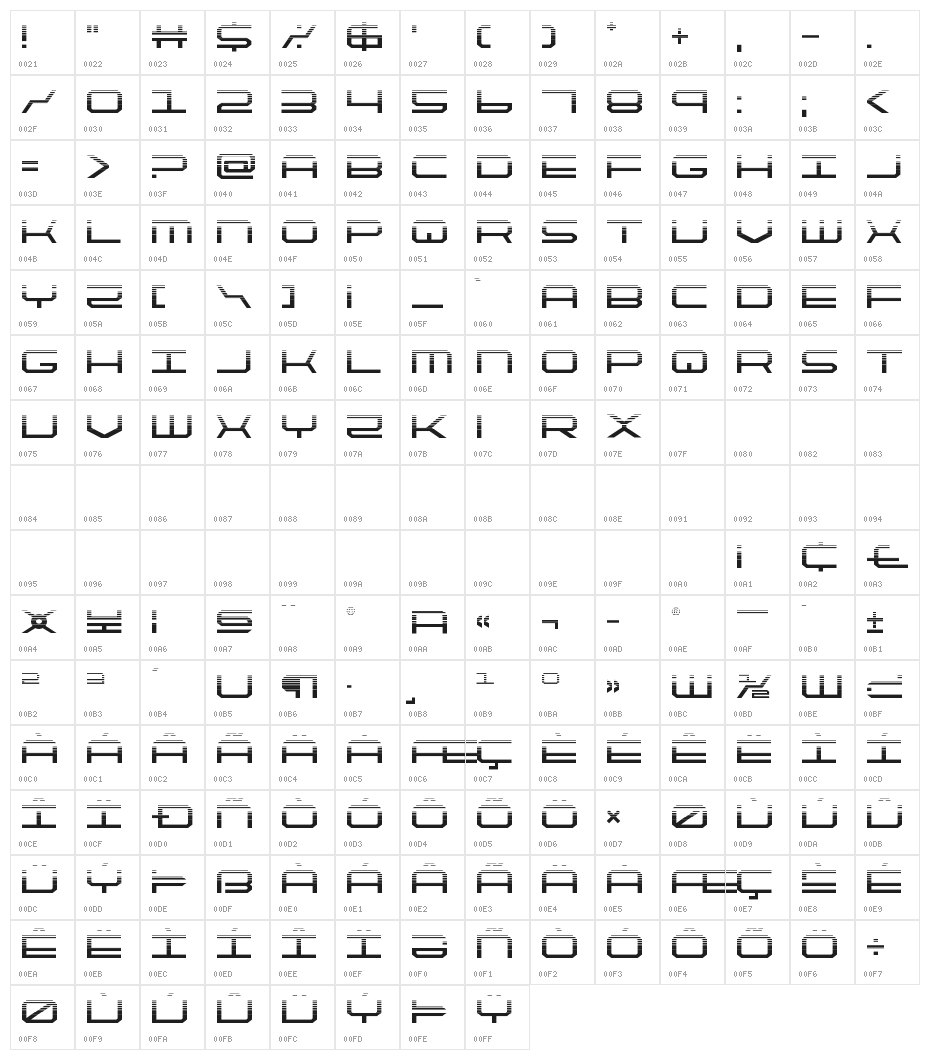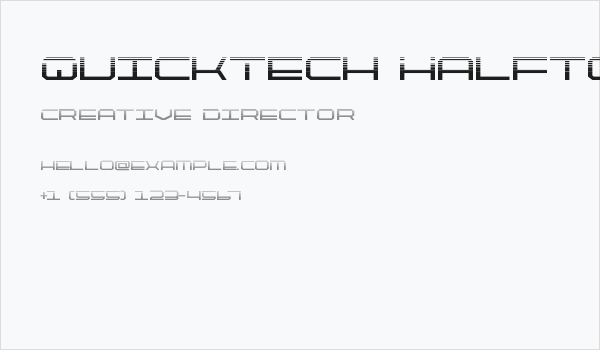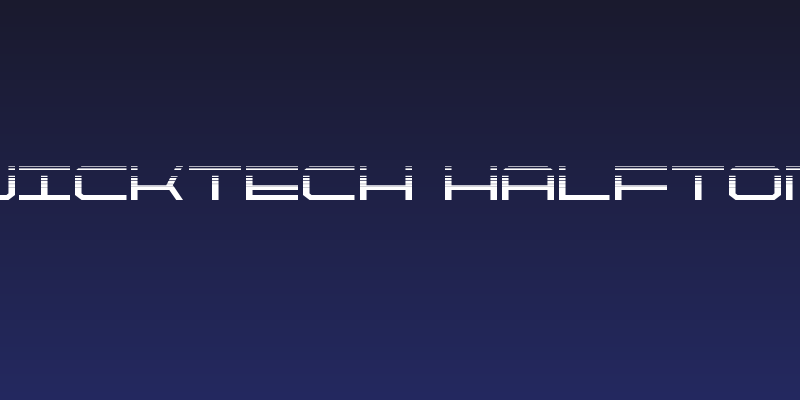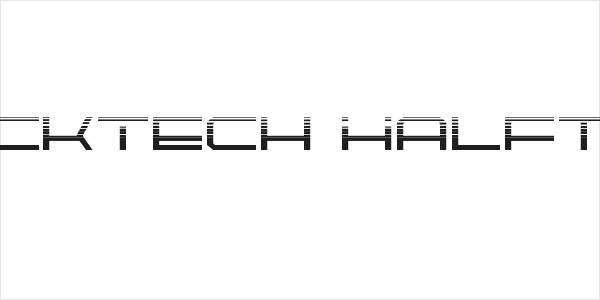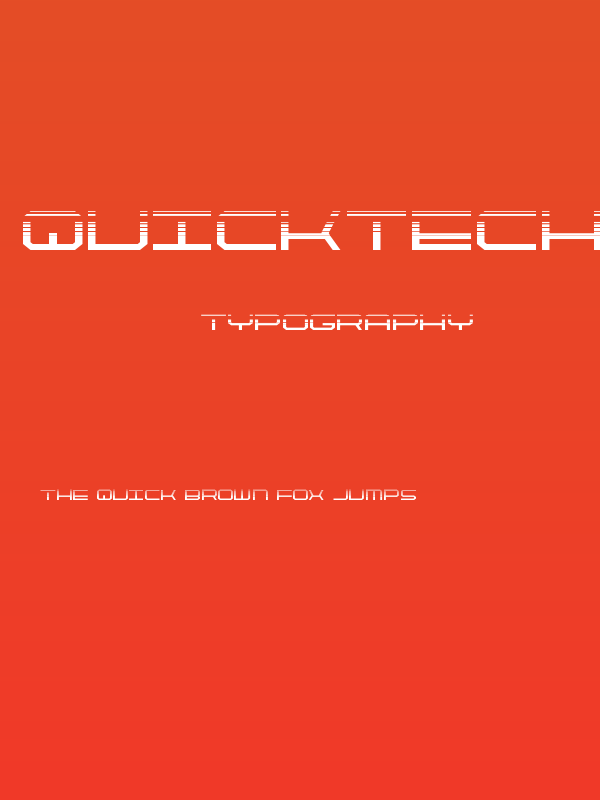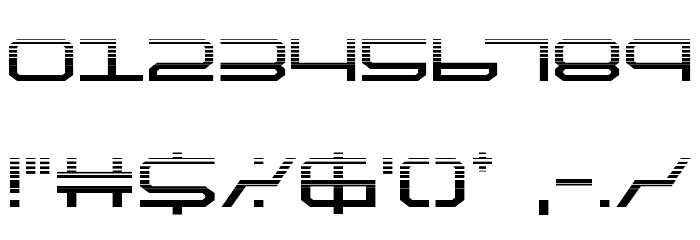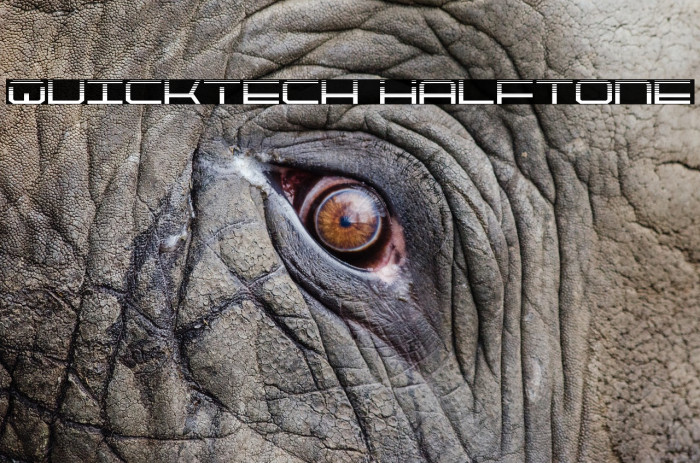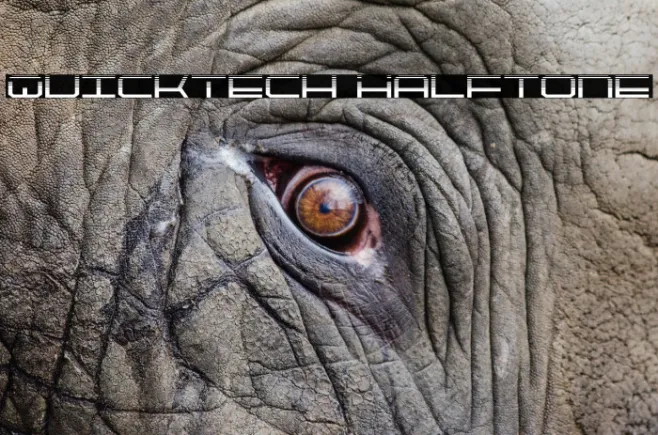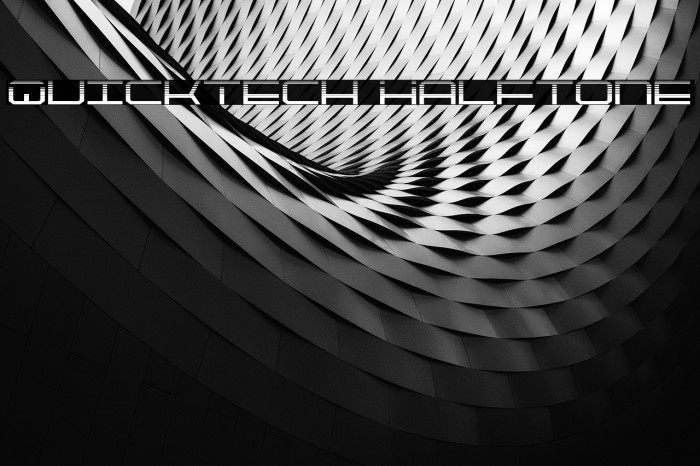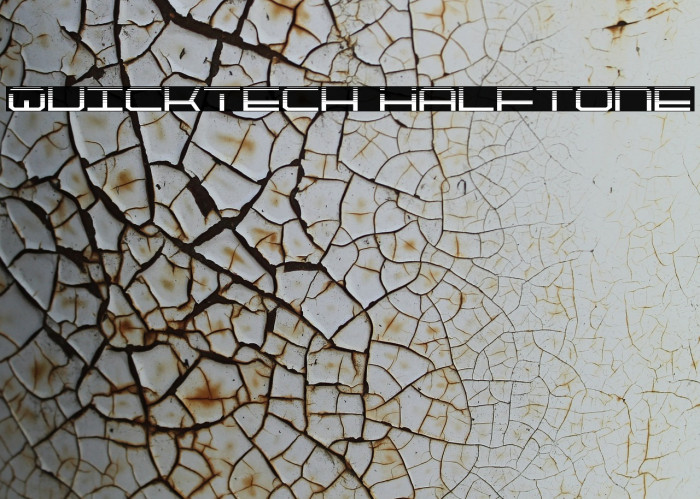
QuickTech Halftone Font
QuickTech Halftone Description
This font features a futuristic and digital aesthetic, characterized by its halftone pattern that gives a sense of movement and modernity. The uppercase and lowercase letters maintain a consistent geometric structure, with horizontal lines creating a dynamic visual effect. The numerals and special characters follow the same design principle, ensuring uniformity across all glyphs. This font is ideal for projects that require a tech-savvy and innovative look, making it suitable for digital interfaces, tech branding, and sci-fi themed designs.
QUICKTECH-HALFTONE UPPERCASE
QUICKTECH-HALFTONE LOWERCASE
QUICKTECH-HALFTONE OTHER CHARS
| Use Case | Logos, Headlines |
| Proposed Projects | Ideal for tech branding, digital interfaces, and sci-fi themed designs. |